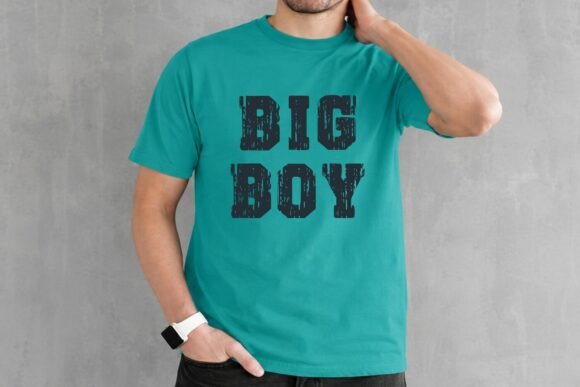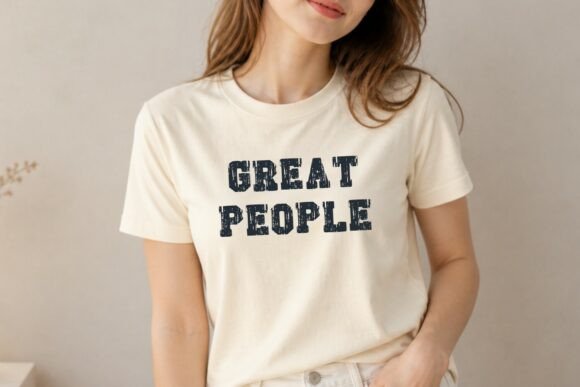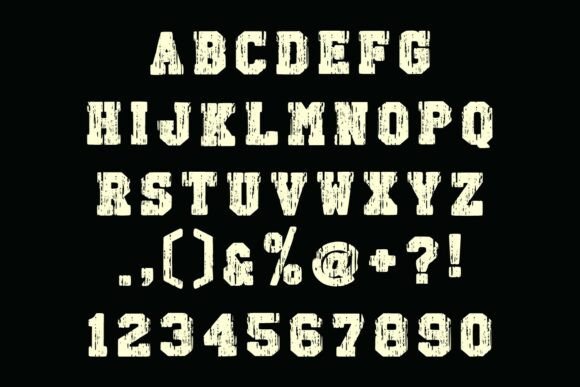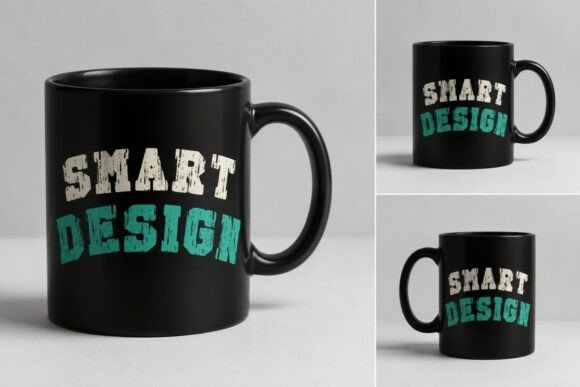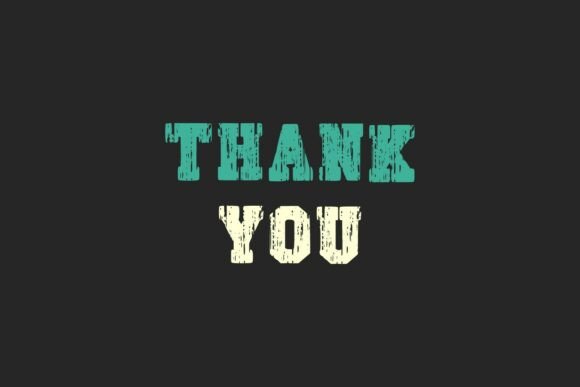
Introducing Bad Bold Grunge: The Ultimate Font for Distressed Designs
Are you tired of using the same old fonts in your designs? Do you want to add a touch of ruggedness and authenticity to your projects? Look no further than Bad Bold Grunge, a vintage typeface inspired by distressed western posters, retro signage, and worn print textures. This bold and rugged font is perfect for designers and crafters who want to give their designs a classic western touch with a bold retro personality.
The Inspiration Behind Bad Bold Grunge
Bad Bold Grunge is a font that draws inspiration from the wild west and the retro aesthetic of distressed prints. The font’s creator aimed to capture the essence of vintage western posters, worn print textures, and retro signage to create a unique and authentic typeface. The result is a font that exudes a strong and rugged personality, perfect for designs that require a bold and eye-catching look.
Key Features of Bad Bold Grunge
So, what makes Bad Bold Grunge stand out from other fonts? Here are some of its key features:
- Bold Characters: Bad Bold Grunge features bold characters that are perfect for making a statement. The font’s bold design ensures that your text stands out, even at smaller sizes.
- Rough Grunge Details: The font’s grunge details give it a worn and distressed look, adding a layer of authenticity to your designs.
- Distressed Style: The font’s distressed style gives it a rugged and vintage look that’s perfect for designs that require a retro aesthetic.
- Classic Western Touch: Bad Bold Grunge has a classic western touch that adds a unique personality to your designs.
Use Cases for Bad Bold Grunge
Bad Bold Grunge is a versatile font that can be used in a variety of design projects. Here are some use cases where this font excels:
- Logos: Use Bad Bold Grunge to create bold and eye-catching logos that make a statement.
- Apparel Designs: The font’s bold design and grunge details make it perfect for apparel designs, such as t-shirts, hoodies, and hats.
- Posters: Create bold and attention-grabbing posters with Bad Bold Grunge, perfect for advertising, promotion, or decoration.
- Branding: Use Bad Bold Grunge to create a consistent brand identity that exudes a bold and rugged personality.
- Album Covers: The font’s distressed style and classic western touch make it perfect for album covers, adding a unique touch to your music designs.
- Packaging: Use Bad Bold Grunge to create eye-catching packaging that stands out on store shelves.
- Social Media Graphics: The font’s bold design and grunge details make it perfect for social media graphics, such as Facebook posts, Instagram stories, and Twitter headers.
- Vintage-Themed Projects: Bad Bold Grunge is perfect for vintage-themed projects, such as brochures, flyers, and posters.
Tips for Using Bad Bold Grunge
Here are some tips for using Bad Bold Grunge in your designs:
- Experiment with Colors: Bad Bold Grunge looks great in bold and bright colors, but don’t be afraid to experiment with different color combinations to find the perfect look for your design.
- Play with Texture: The font’s grunge details and distressed style make it perfect for adding texture to your designs. Experiment with different textures and overlays to find the perfect look.
- Use it Boldly: Bad Bold Grunge is a bold font, so don’t be afraid to use it boldly. Use it in large sizes or as a headline to make a statement.
Bad Bold Grunge is a unique and authentic font that’s perfect for designers and crafters who want to add a touch of ruggedness and authenticity to their designs. With its bold characters, rough grunge details, and distressed style, this font is perfect for a variety of design projects, from logos and apparel designs to posters and social media graphics. So why settle for a boring font when you can use Bad Bold Grunge to give your designs a bold retro personality with a classic western touch?